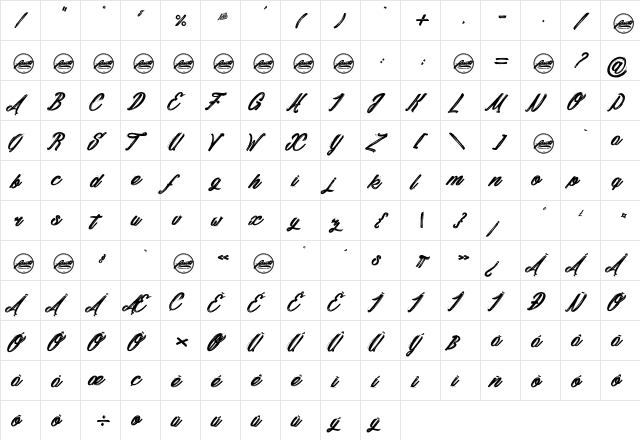
Daylight&Moonlight_PersonalUseOnly Regular
Design Context for Daylight&Moonlight_PersonalUseOnly Typeface
Daylight&Moonlight_PersonalUseOnly is a composed and adaptable typeface that performs quietly and consistently across a wide range of design contexts. Its slender proportions lend an understated elegance to any composition.